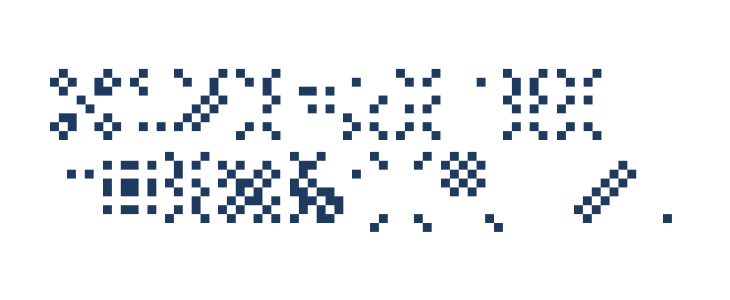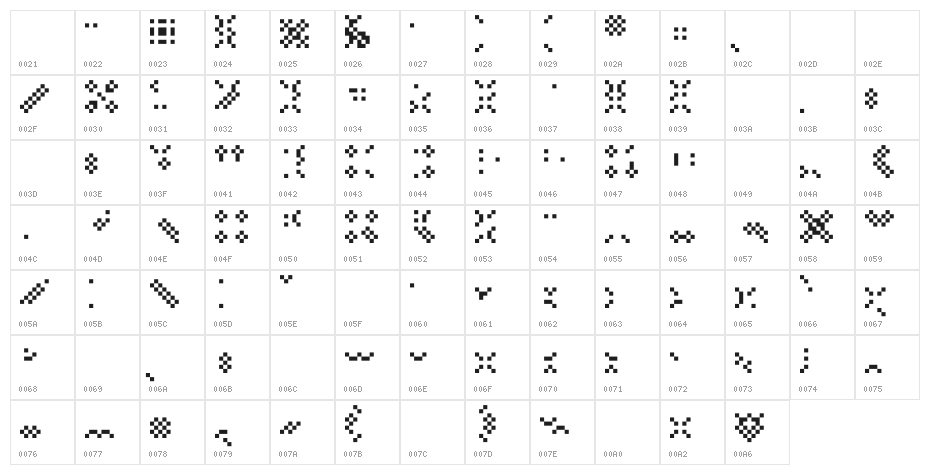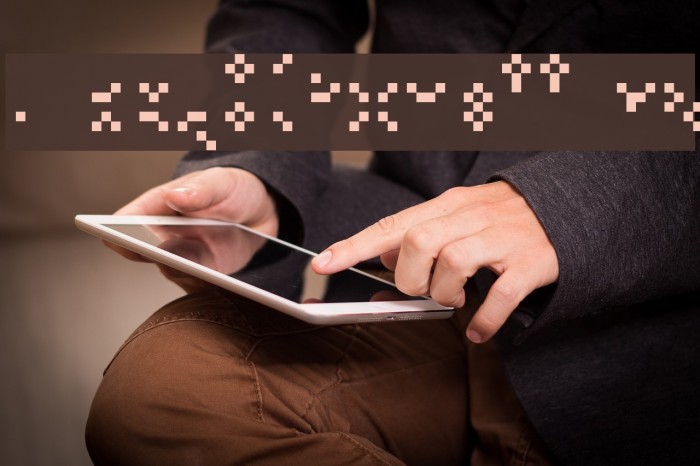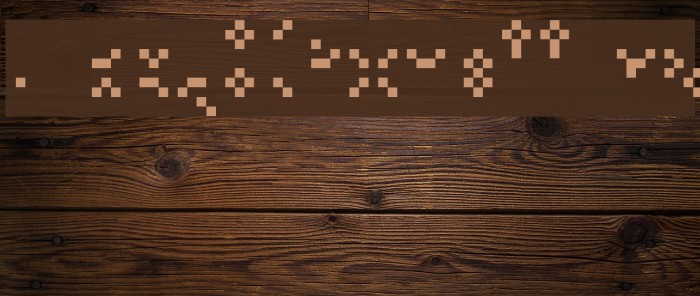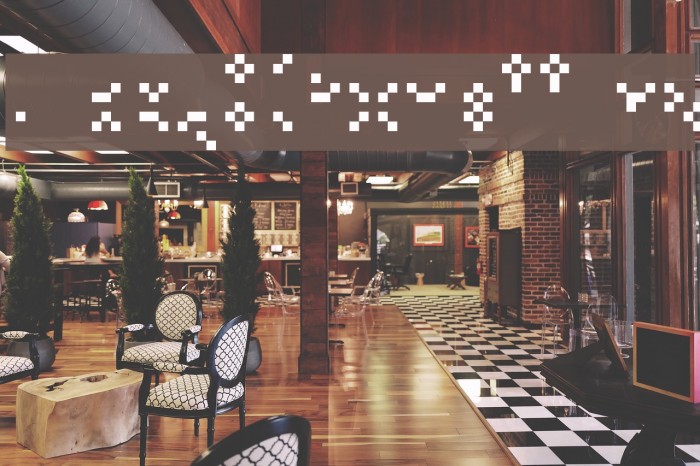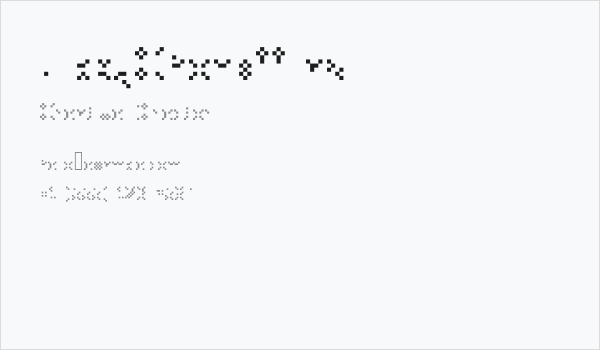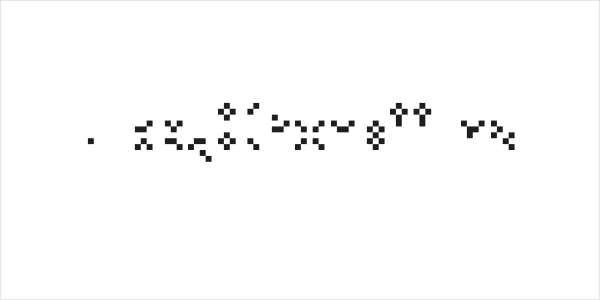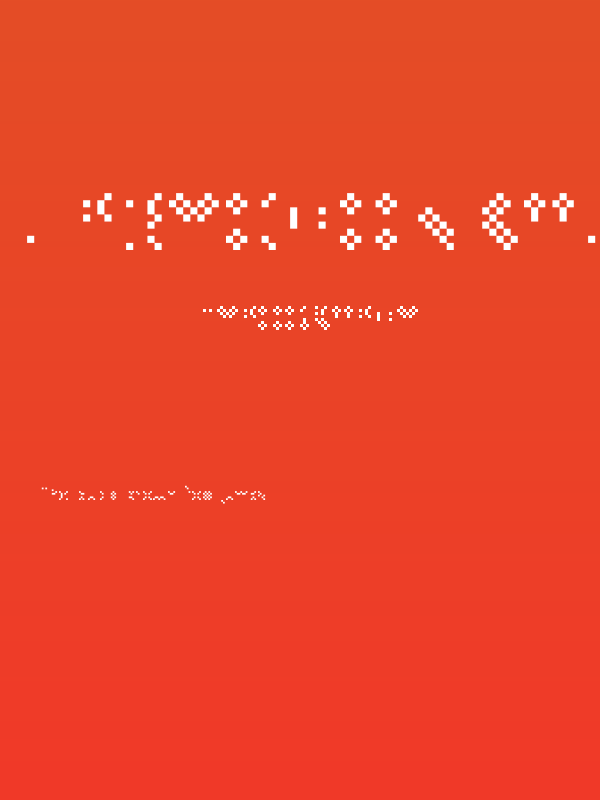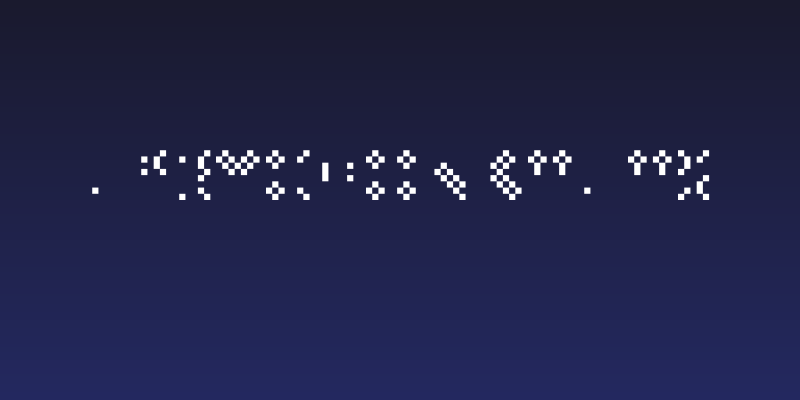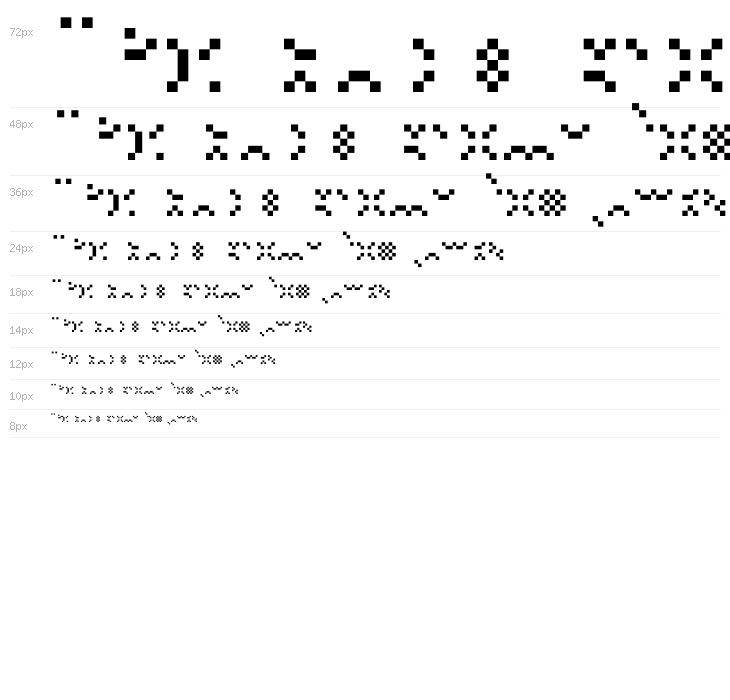
LipbyChonkAlias Font
LipbyChonkAlias Description
This font is a pixelated, dot-matrix style that mimics the appearance of early digital displays or retro video game text. Each character is composed of a grid of dots, giving it a distinct, blocky look. The uniformity of the dots creates a consistent texture across all characters, enhancing its digital aesthetic. The font is highly legible at larger sizes, where the dot pattern becomes a prominent design feature. Its nostalgic feel makes it suitable for projects that aim to evoke a sense of the early digital era or retro gaming culture.
| Use Case | Logos, Headlines, Digital Art |
| Proposed Projects | Ideal for retro video game designs, digital art projects, or any creative work that seeks to capture a vintage digital feel. |